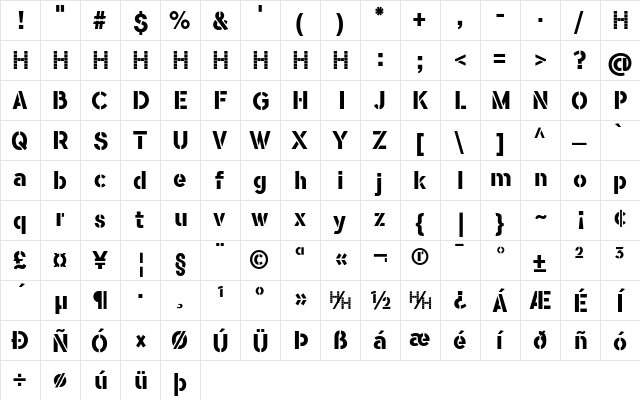
FLAMANTE STEN Regular
| Foundry | deFharo |
| Designer | Fernando Haro |
Design Context for FLAMANTE STEN Typeface
FLAMANTE STEN takes a measured approach to typography — its balanced proportions and neutral character make it a reliable workhorse for both digital and print work.